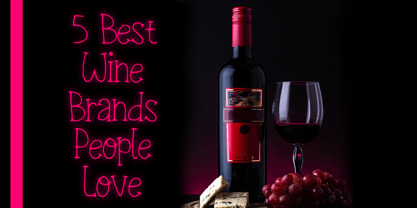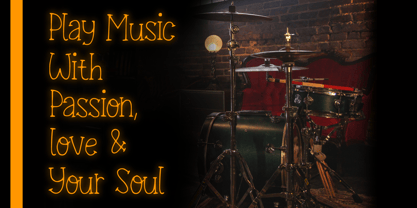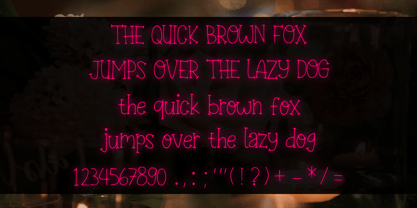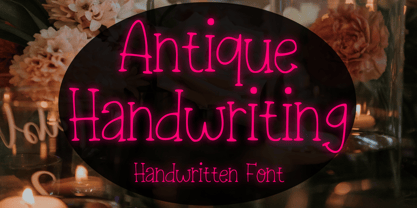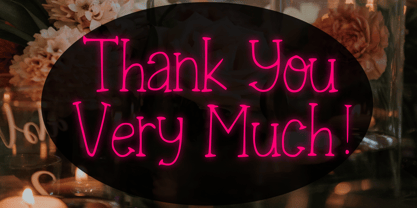
Antique Handwriting
by Mvmet
The Antique Handwriting Font Family was designed by Gabriel Valentinus and published by Mvmet. Antique Handwriting contains 1 styles. More about this family
Antique Handwriting is a fun and lovely handwritten font. It will elevate a wide range of design projects to the highest level. You can use this font for many design ideas such as stickers, t-shirt designs, amazing logo designs, magazine or book covers, comics, cartoon drawings, and many more. If you want to use it for Valentine or other lovely themed designs, it will be your perfect font to pick. This font will add a super cool touch to your designs!
Designers: Gabriel Valentinus
Foundry: Mvmet